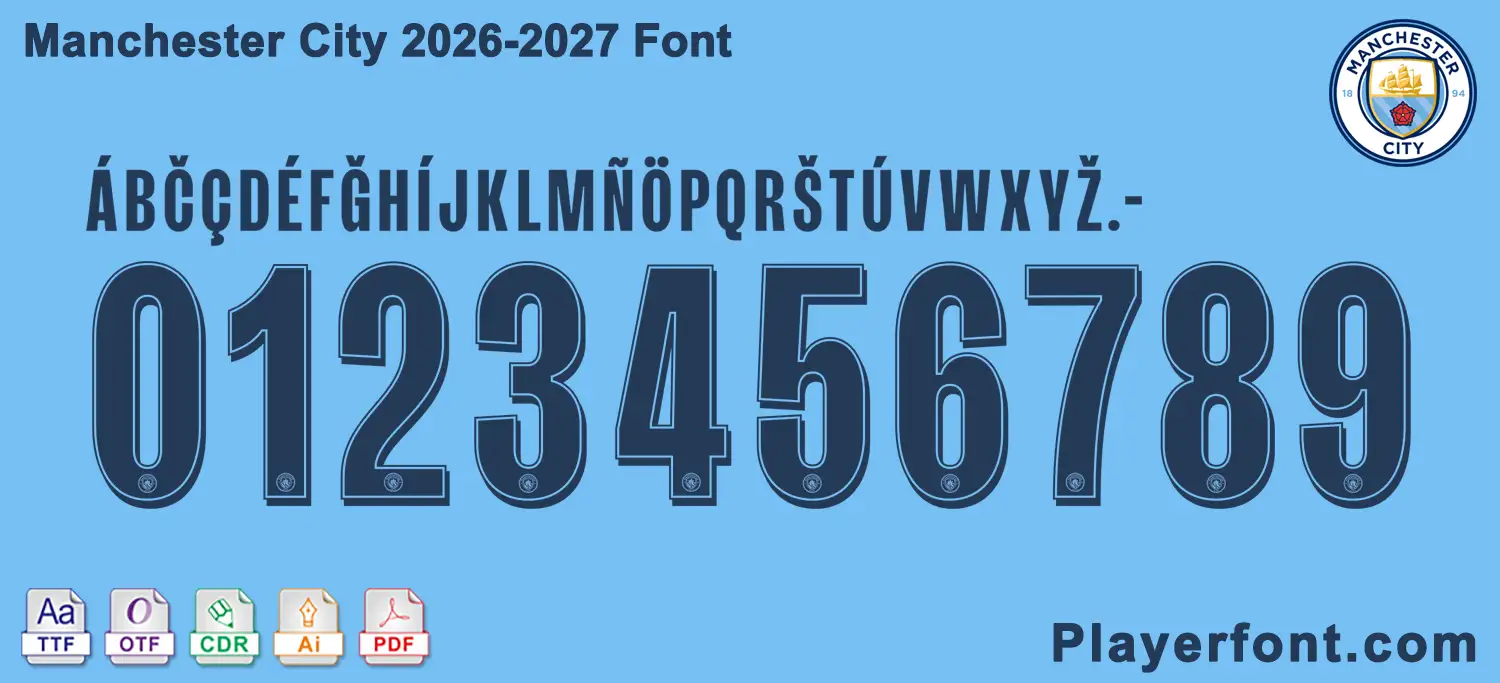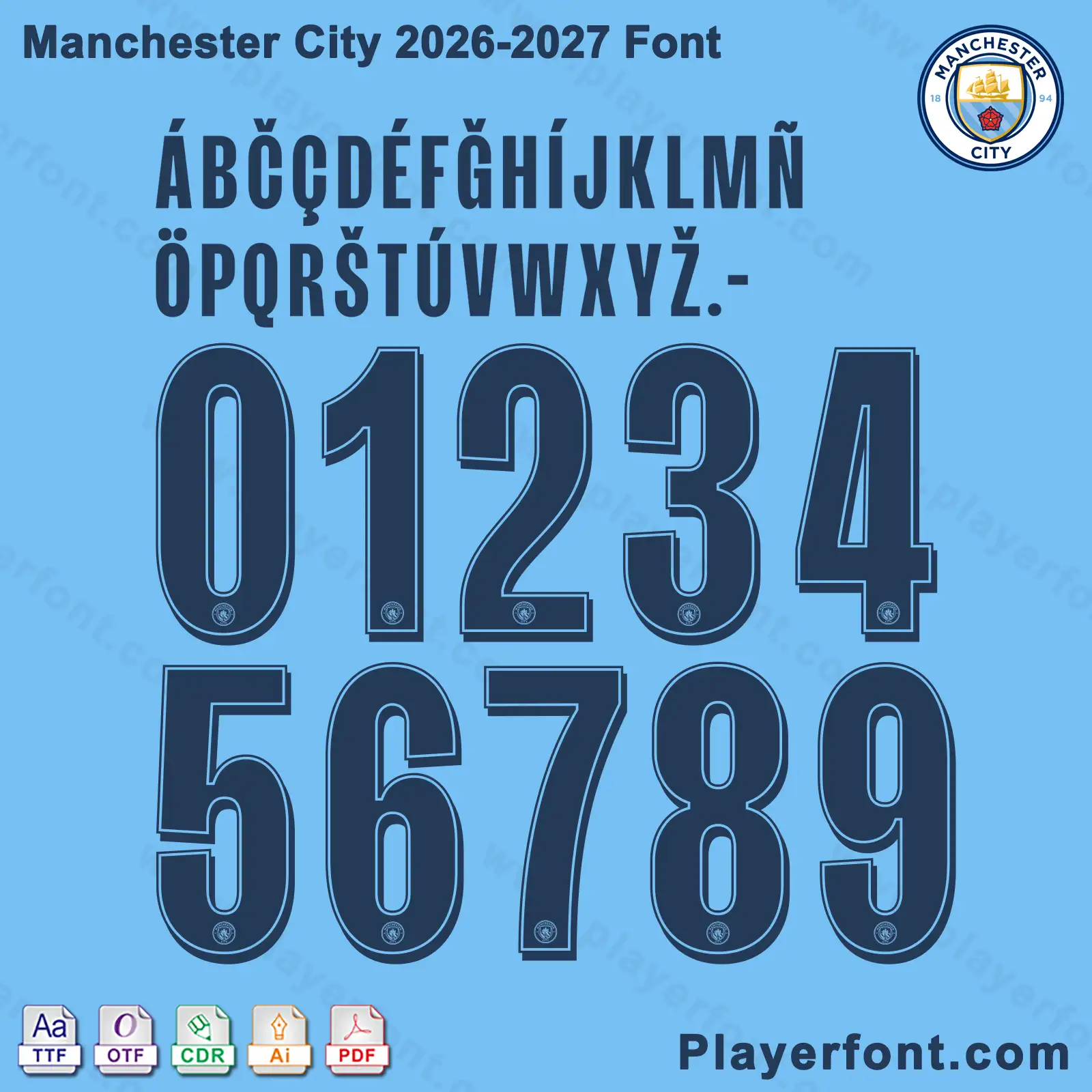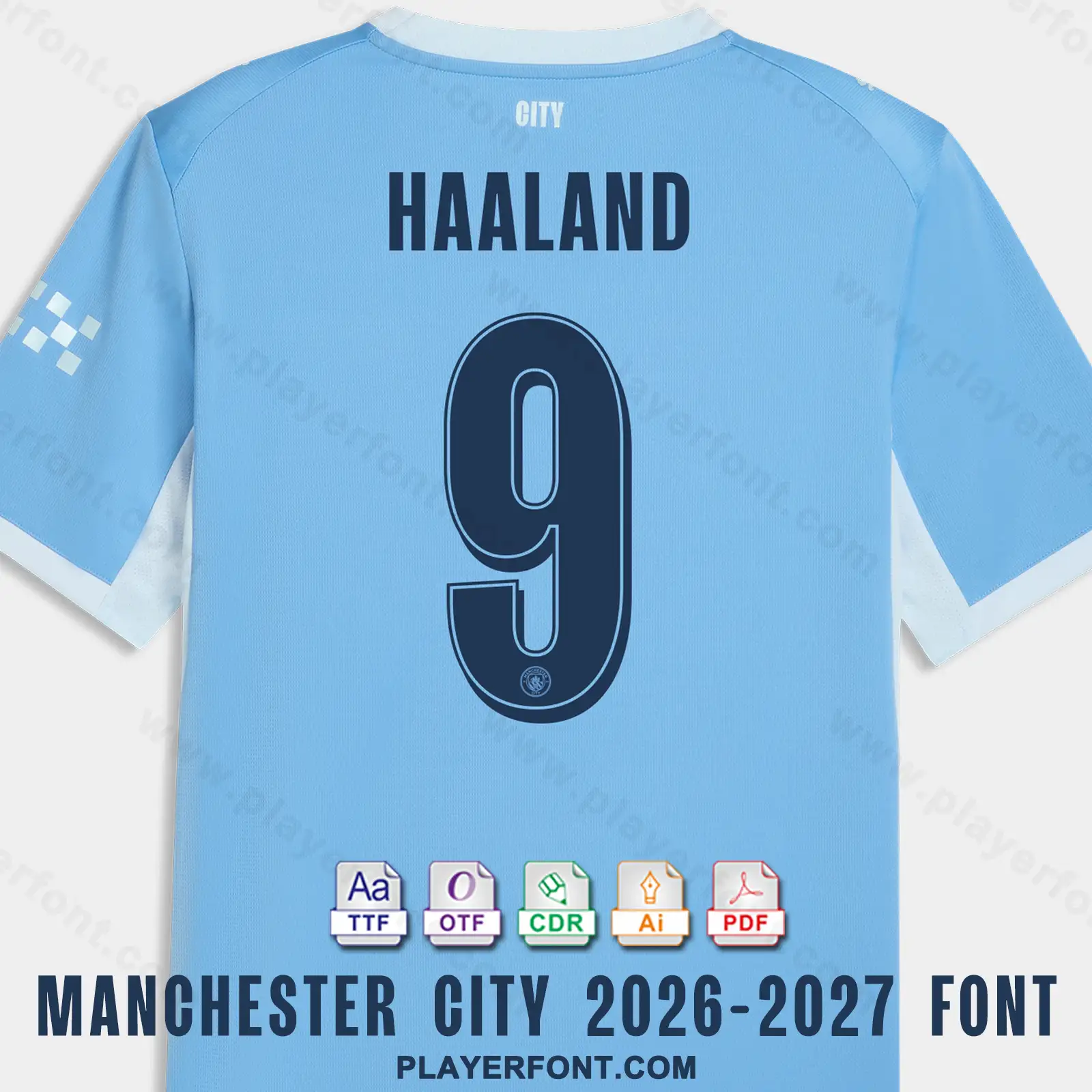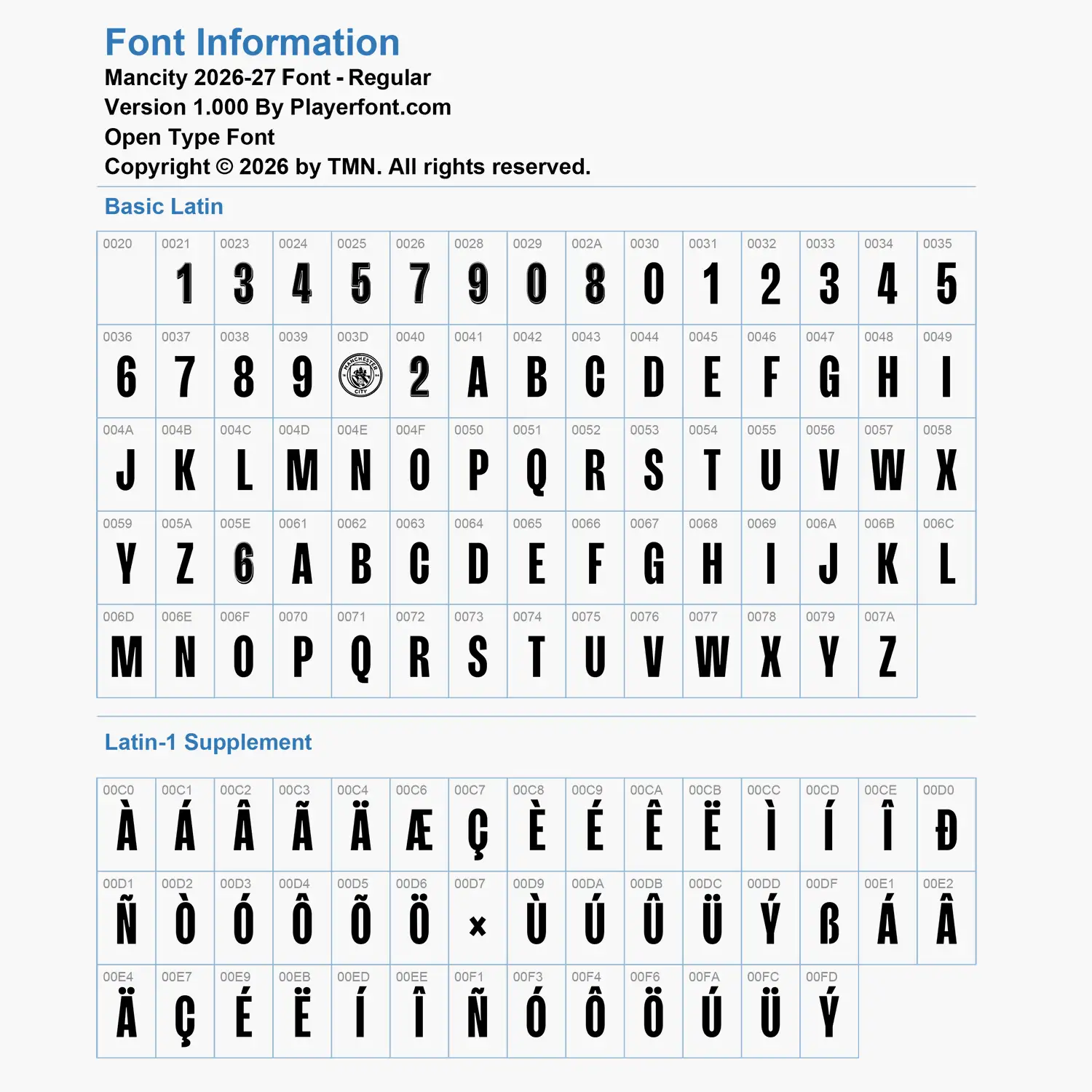
Elevate your sports jersey mockups, football custom graphics, and vector apparel printing projects with the high-quality Manchester City 2026-2027 Font Download. Masterfully engineered by Playerfont.com, this high-performance typography set replicates the official-style numbers and distinct lettering featured on the pitch for Manchester City’s campaign.
Key Typography Features & Character List:
This typography pack is fully optimized to support international player rosters and diverse numbering layouts:
Condensed Tall Athletic Lettering: Contains a narrow, high-impact uppercase character set, custom geometric letters, numbers (0-9), hyphens, and periods.
Advanced International Accent Support: Includes an expansive set of diacritics spanning Basic Latin and Latin-1 Supplement (such as Á, B̆, Č, Ç, D̆, É, F̆, Ğ, Í, Ñ, Ö, Š, Ť, Ú, and Ž) ensuring flawless rendering for global Premier League stars (such as Erling Haaland) and European competition naming requirements.
Authentic Visual Details: The jersey numbers feature dark navy block structures with a fine sky blue double-inline border running near the edges and the official circular Manchester City club crest centered at the base of each digit.
| Design Feature | Dark Navy Body with Light Blue Dual-Inline Outline & Crest Base |